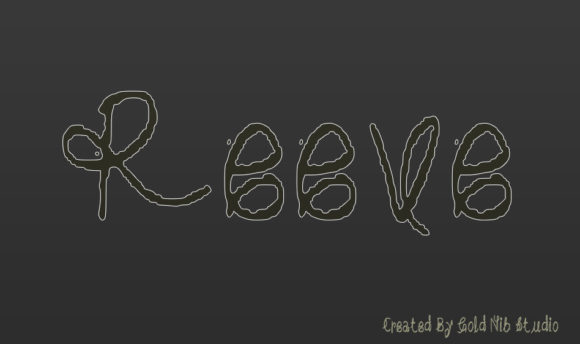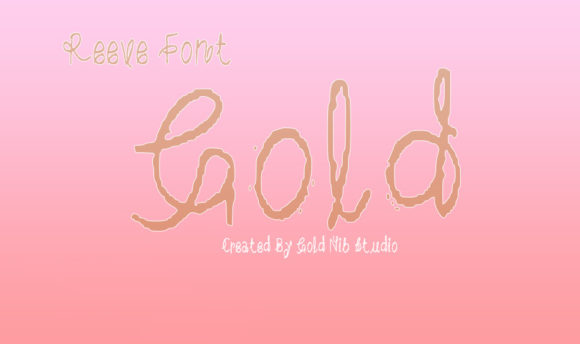
Introduction to Reeve Font
Reeve is a stylish and adaptable handwritten font.
Its unique and neat style makes it incredibly versatile It works well for various purposes.
Key Features of Reeve Font
Why Choose Reeve Font?
Reeve Font offers exceptional quality and versatility, making it a valuable addition to your design toolkit. Whether you’re creating for personal projects or commercial use, Reeve Font delivers professional results.